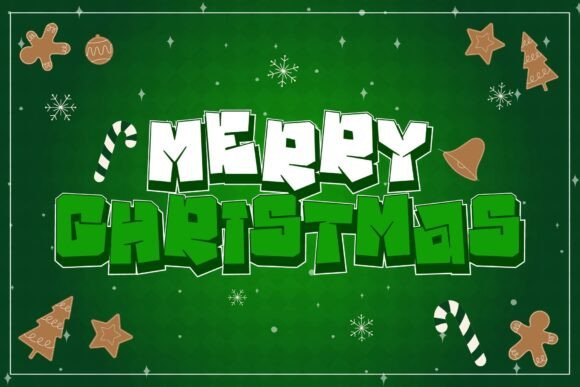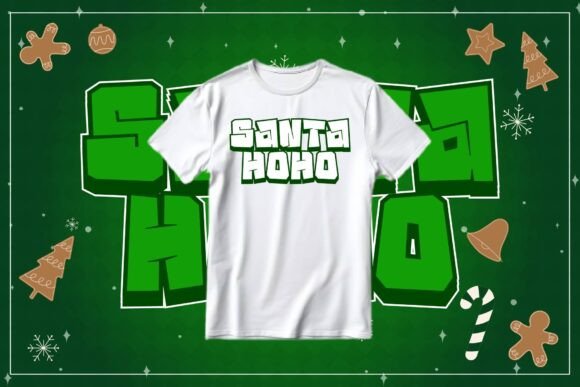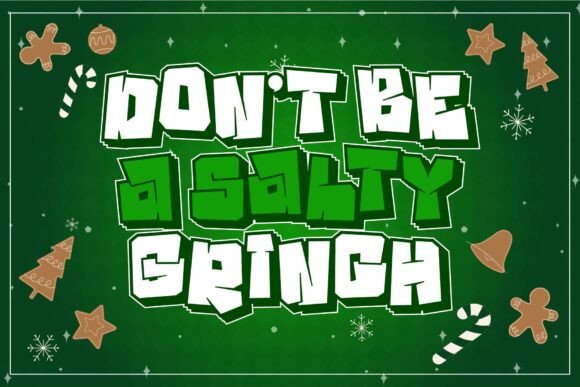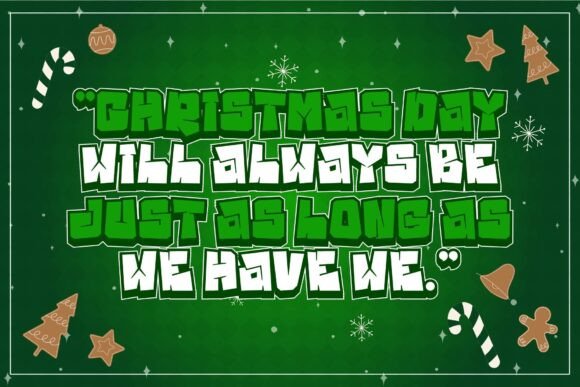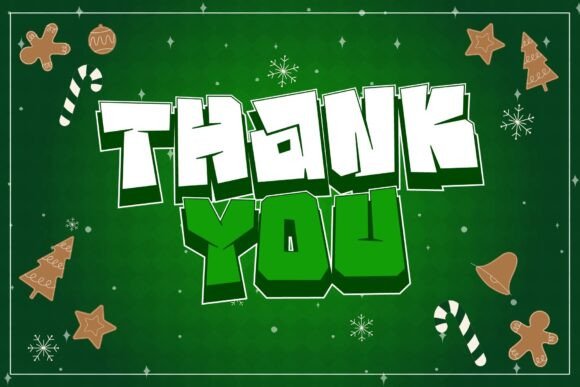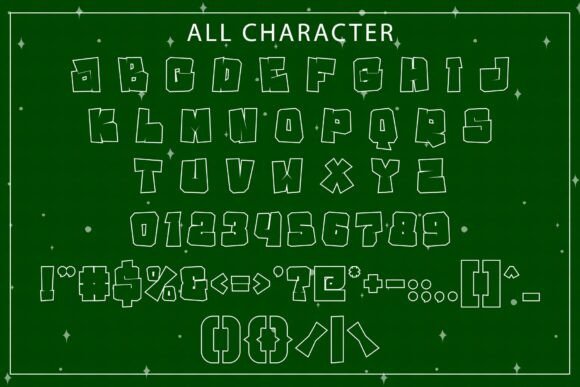
Introduction to Grinch Smile Font Font
Fonts play a crucial role in design, and the Grinch Smile Font font is a typeface that brings both character and versatility to any project. Whether you’re working on a branding project, a website, or a print design, the Grinch Smile Font font offers a unique style that can elevate your work.
Grinch Smile is an exquisite stylish font, seamlessly blending modern quality with the whimsical charm of the Grinch Cartoon Font.
You can use it in any project so you will look unique and different Use it for t-shirts, covers, brochures, etc.
Key Features of Grinch Smile Font Font
Why Choose Grinch Smile Font Font?
The Grinch Smile Font font is more than just a typeface – it’s a design tool that helps you communicate your message with style and clarity. Its unique character set and versatile design make it suitable for a wide range of applications, from elegant invitations to bold headlines.
With its carefully crafted letterforms and balanced proportions, the Grinch Smile Font font ensures readability and visual appeal across all mediums.
What makes Grinch Smile Font font special?
The Grinch Smile Font font stands out with its unique design, exceptional readability, and versatility across various design applications.